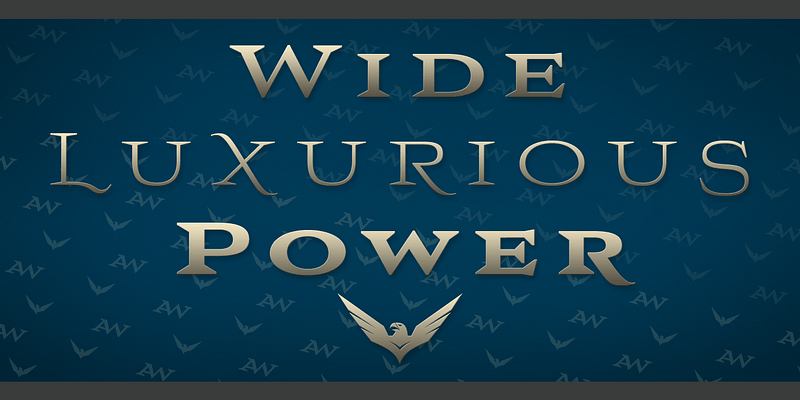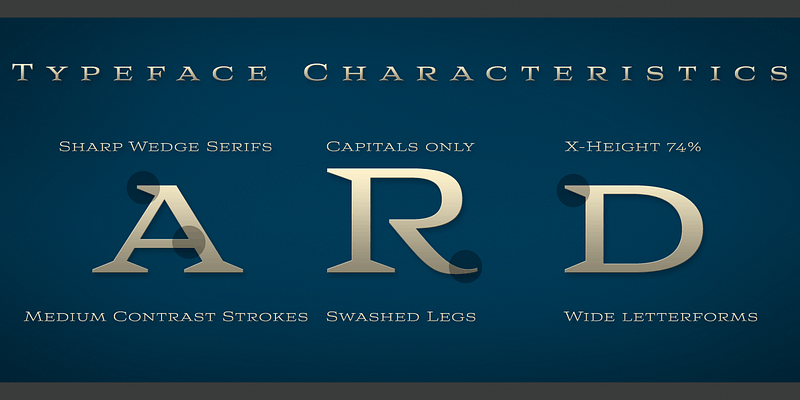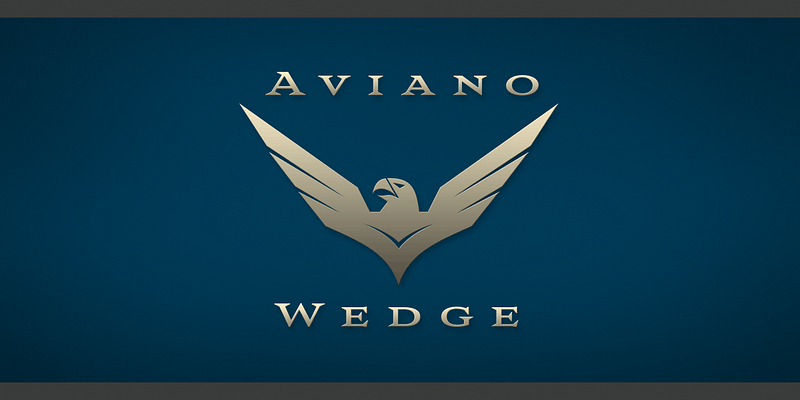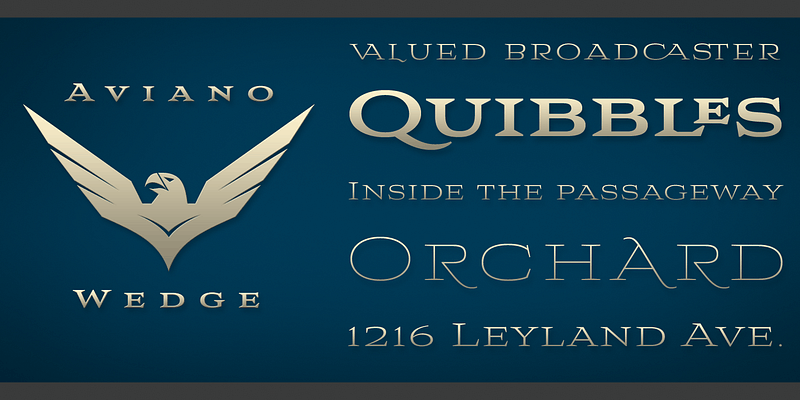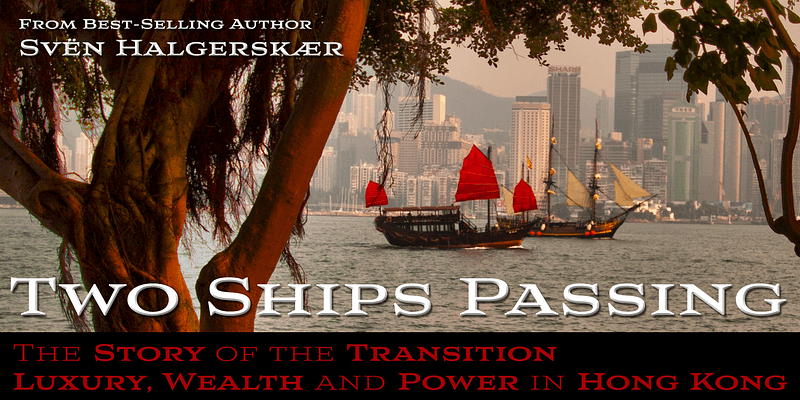
Firm and resolute, the sharp, triangular wedge serifs of the new Aviano Wedge stamps your copy with the confidence of late 19th century luxury, wealth, and power.